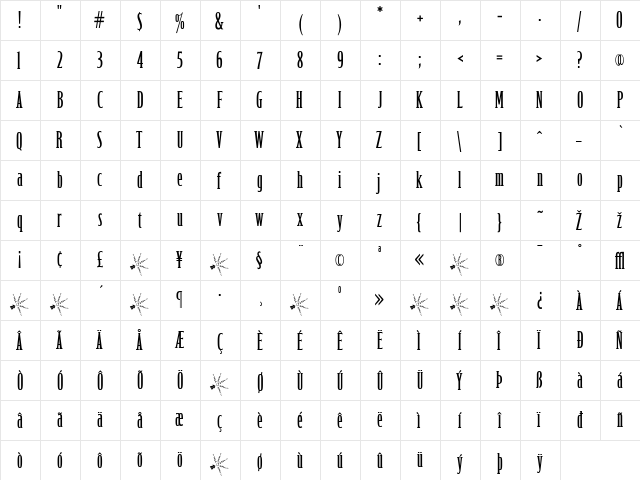
Lafayette Regular
Design Context for Lafayette Typeface
Lafayette offers clean, dependable letterforms without strong stylistic allegiance, making it a practical choice for designers who need flexibility.